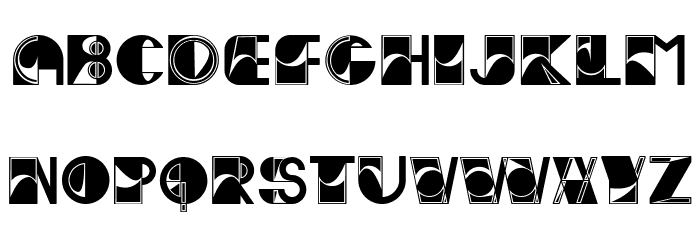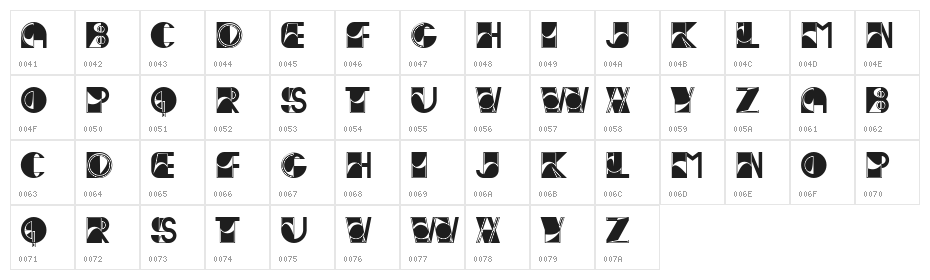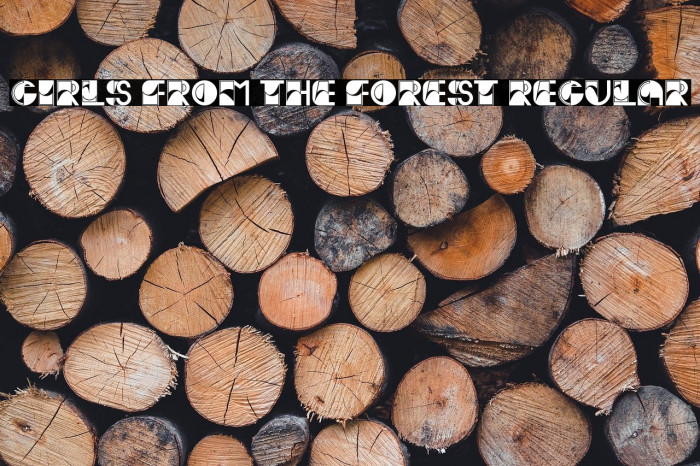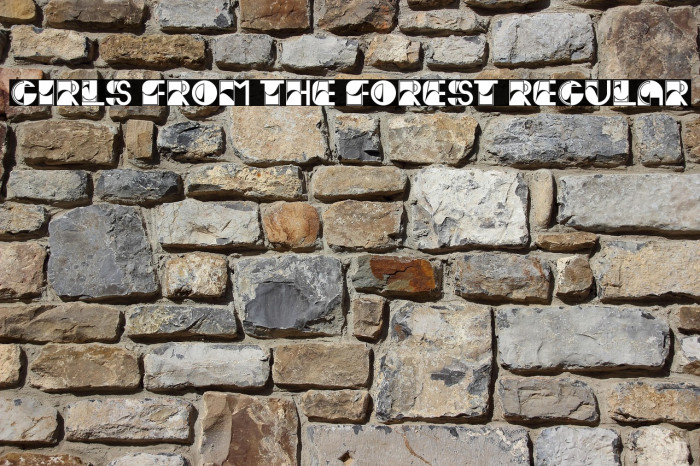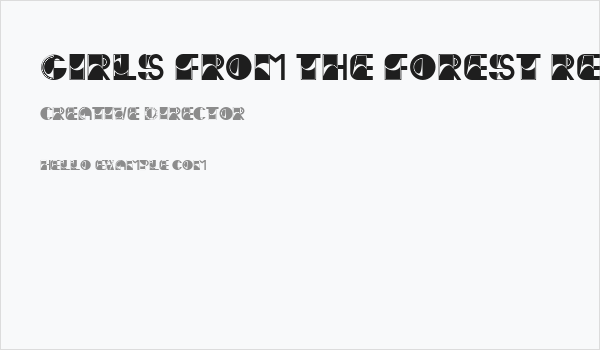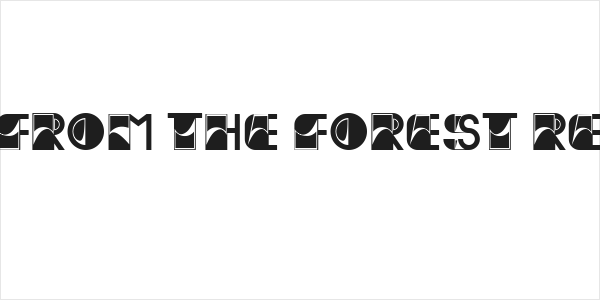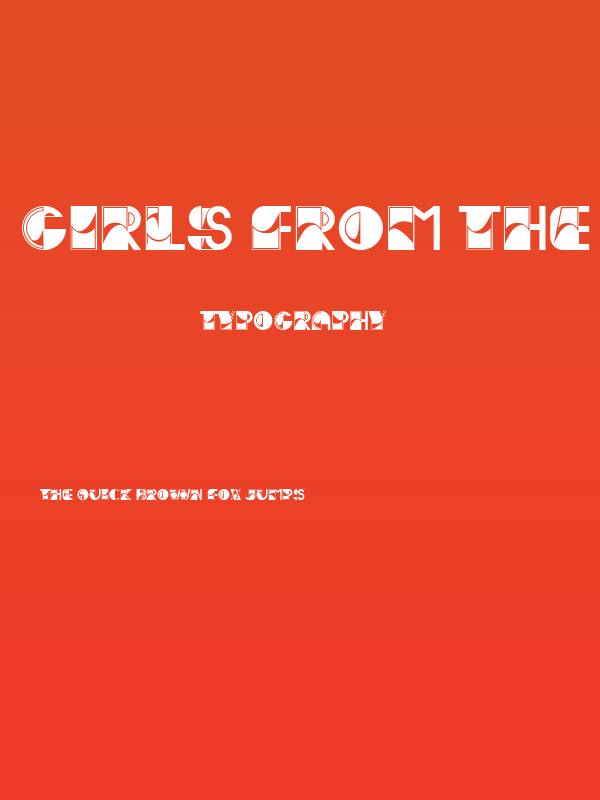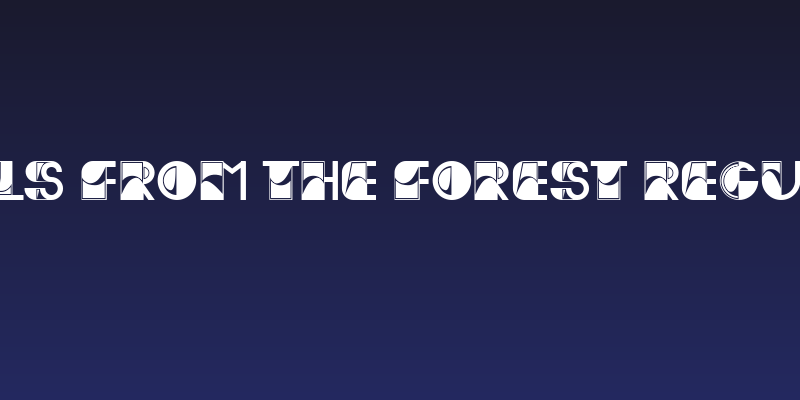
Girls from the Forest Regular Font
Girls from the Forest Regular Description
This font features a unique and artistic design, characterized by bold geometric shapes and intricate patterns within each letter. The uppercase letters are particularly striking, with a combination of solid and outlined sections that create a sense of depth and movement. The font's style is both modern and decorative, making it stand out in any design project. The use of negative space and contrasting elements adds to its visual appeal, making it suitable for eye-catching headlines and creative displays.
| Proposed Projects | Ideal for artistic posters, branding, album covers, and creative advertising campaigns. |